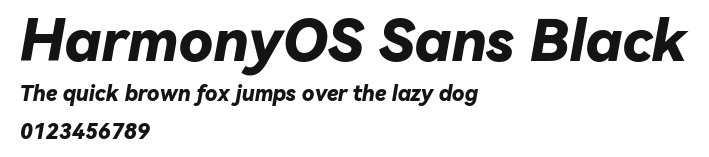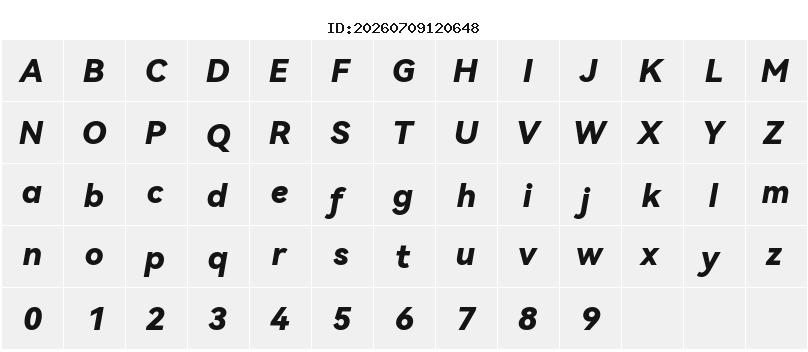
HarmonyOS Sans Black Preview
• Font Name: HarmonyOS Sans Black
• Font ID: HarmonyOS Sans Black Italic Version 1.0
• Full Font Name: HarmonyOS Sans Black Italic
• PostScript Name: HarmonyOS_Sans_Black_Italic
• Designer: Huawei Device Co., Ltd & Hanyi Fonts
• Manufacturer: Hanyi Fonts
About HarmonyOS Sans Black.ttf
HarmonyOS Sans Black.ttf is a modern, elegant sans-serif font designed for ultimate readability and visual harmony. Perfect for branding, headlines, web design, and print materials.